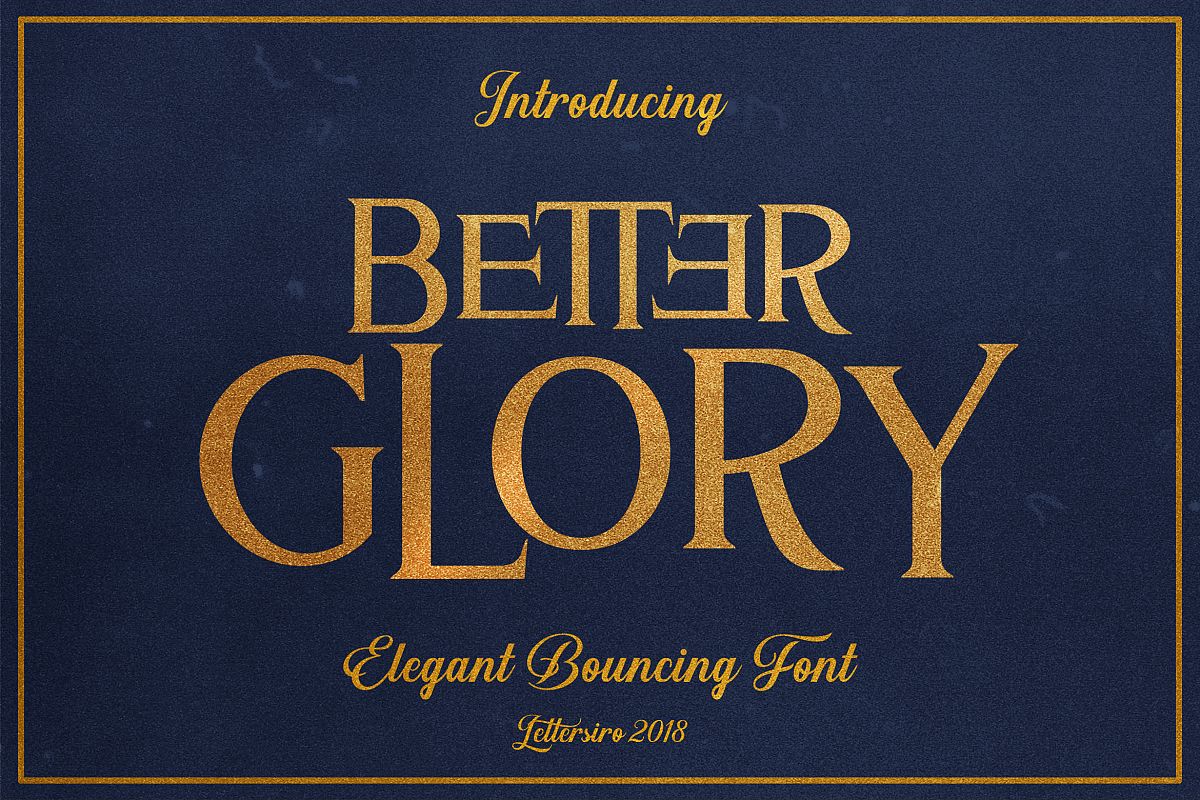
Better Glory
Better Glory is vintage Bouncing Font. Comes with All caps, alternate, and Special Ligatures.
Better Glory is perfect for vintage logo, poster, quote, clothing, sticker design, and any other vintage designs.
Better Glory has alternate, ligature, and multilingual language (Danish,Finnish,English, Spanish,Dutch,German,Icelandic,Italian, Norwegian,Portuguese,Indonesian, Swedish)